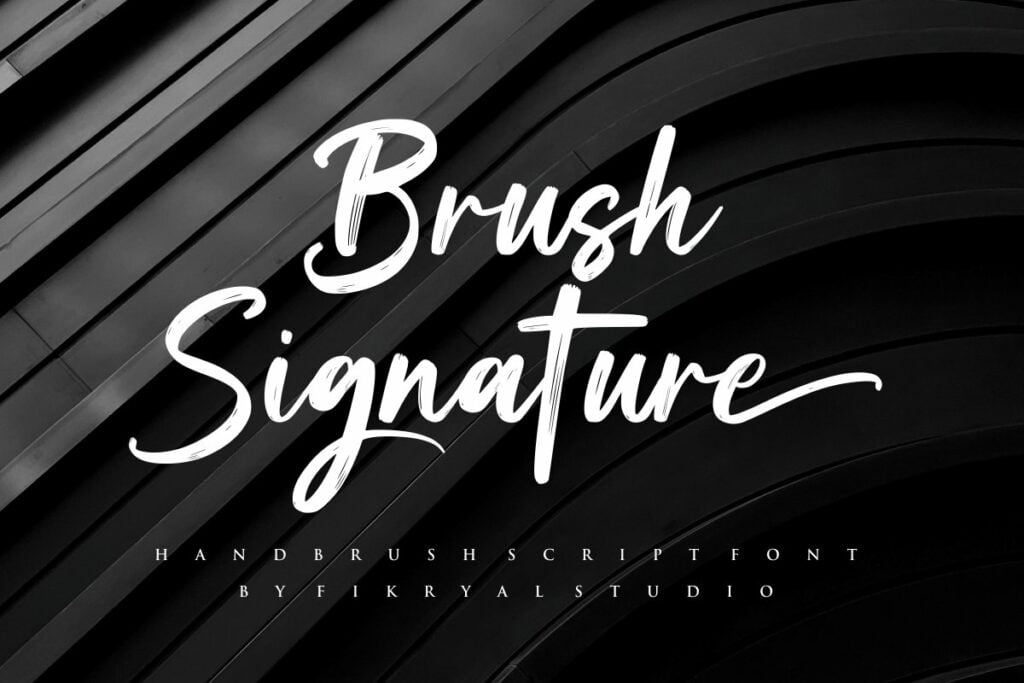
Brush Signature Font
Brush Signature – is a hand brush script font. This font is made in a modern style, casual, strong, elegant, and suitable for your various design needs. it’s perfect for logo, branding, title, social media posts, advertisements, product packaging, product designs, label, photography, watermark, special event, magazine, web design, etc.
Brush Signature Script Font